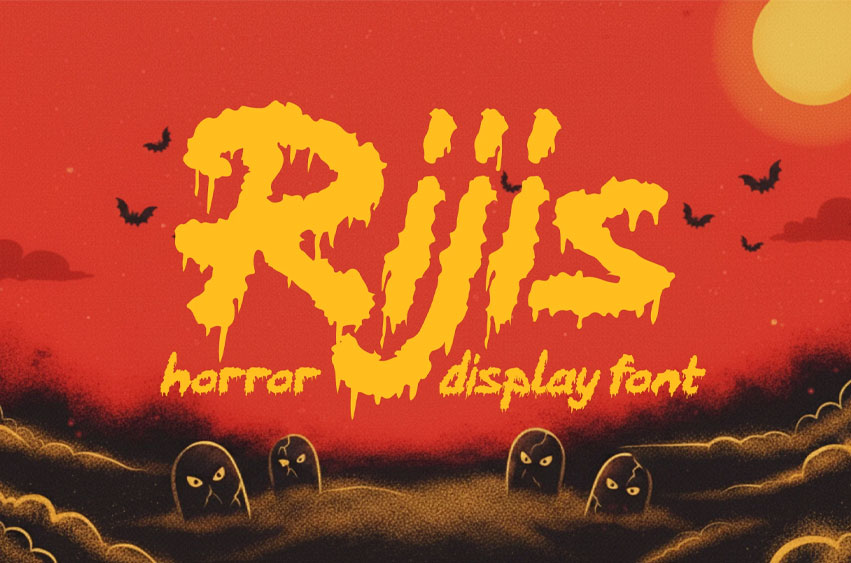
Rijis Font Unleash a spine-chilling sensation with Rijis, an authentically terrifying horror display font that drips with character and fright! This unique typeface is meticulously designed to evoke a gruesome, eerie, and unsettling atmosphere, making it perfect for projects that demand a bold, spooky, and unforgettable visual statement for Halloween and beyond.
Rijis’s distinctive dripping, melting effect on each character, combined with its rough, hand-drawn appearance, ensures your text jumps out with a truly horrifying aesthetic. It’s incredibly effective for a wide array of high-impact applications: think chilling Halloween party invitations, scary movie titles, haunted house promotions, horror game graphics, creepy book covers, and any creative project that aims to send shivers down the spine. Its menacing presence and gruesome details make it an instant attention-grabber for all things dark and macabre.
This font comes equipped with a comprehensive character set, including uppercase letters, lowercase letters, numbers (0-9), and essential punctuation and symbols. Furthermore, Rijis boasts robust multilingual support, allowing your designs to reach a global audience with consistent, high-impact horror style. Designed for maximum visual fear factor, Rijis is ready to infuse your creations with an unparalleled sense of dread and artistic flair.
- Horror Display Font: Designed for maximum fright and visual impact.
- Dripping/Melting Effect: Unique, eerie character design.
- Complete Character Set: Includes uppercase, lowercase, numbers (0-9), and essential punctuation/symbols.
- Multilingual Support: Broad compatibility for global horror projects.
- Versatile Usage: Perfect for Halloween, movie titles, games, book covers, events, and spooky promotions.
- Grunge & Textured Feel: Adds to the ominous and weathered aesthetic.